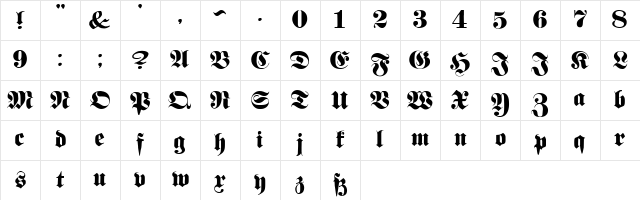
Proclamate Heavy Heavy
Style: Heavy
Designer: PJL
Design Context for Proclamate Heavy
Proclamate Heavy is a composed and adaptable typeface that performs quietly and consistently across a wide range of design contexts.